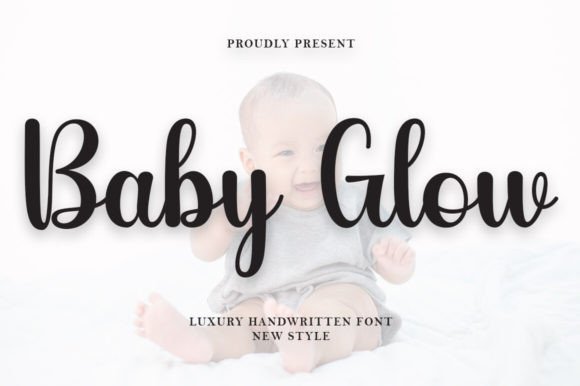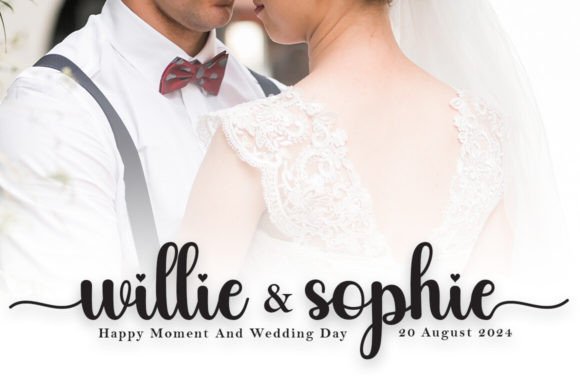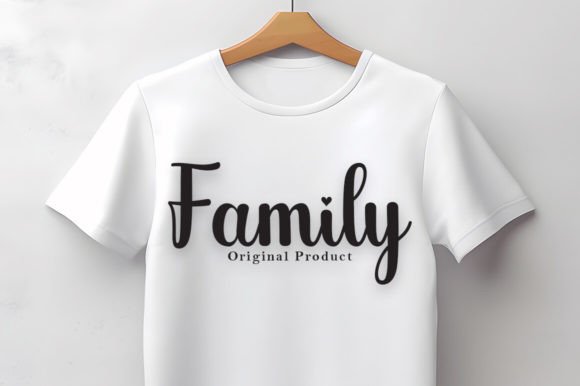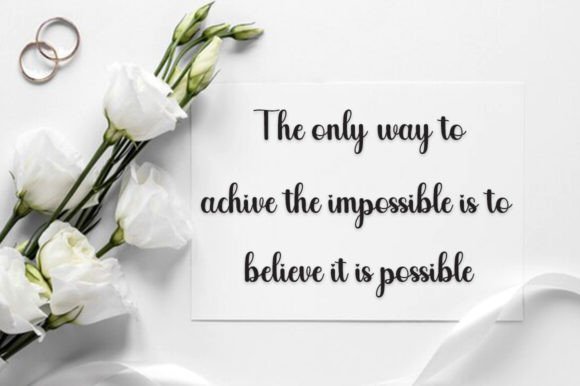
Baby Glow Font
About the Baby Glow Font
Get ready to be inspired by Baby Glow Font, a fresh and dynamic typeface for modern creators. Baby Glow is a stylish and incredibly elegant handwritten font. It looks stunning on wedding invitations, thank you cards, quotes, greeting cards, logos, business cards, and every other design which needs a handwritten touch.
Baby Glow’s elegant, handwritten style is ideal for projects requiring a touch of personalized charm. It excels in applications like logos, short quotes, and headings where its refined aesthetic adds impact. Consider it for branding materials for boutiques, wedding stationery, or artisan products. However, its delicate nature makes it unsuitable for body text or lengthy paragraphs, and its legibility suffers at smaller sizes.
Pairing Baby Glow effectively requires considering its inherent grace. A clean sans-serif like Montserrat or Lato would provide a strong, modern counterpoint, creating visual balance. For a warmer feel, a classic serif such as Garamond or Playfair Display would complement its script-like quality. Avoid pairing it with other highly decorative fonts to prevent visual clutter.
The font projects a sophisticated, yet approachable personality; friendly and stylish without being overly whimsical. Its refined strokes convey elegance while maintaining a sense of handwritten warmth, making it a versatile choice for upscale yet personal branding.